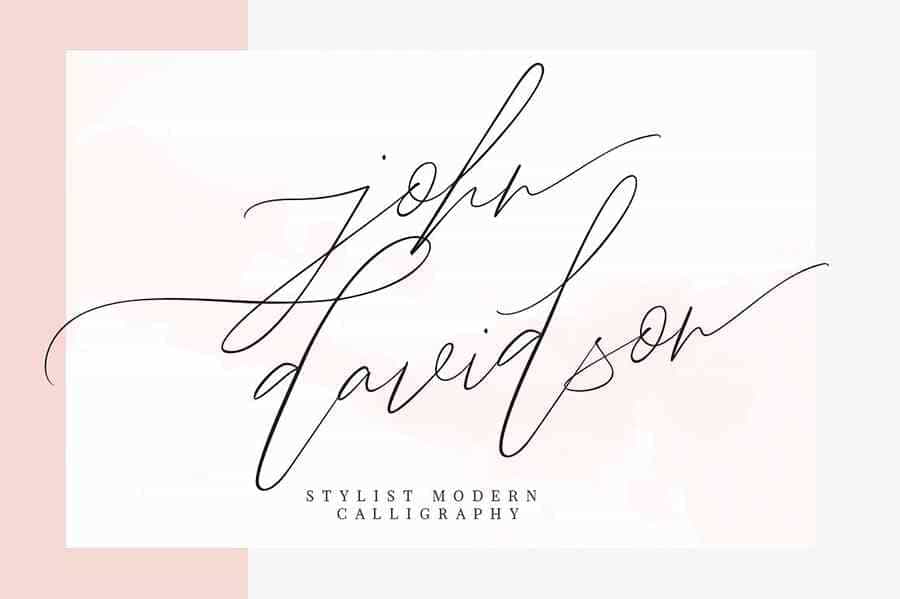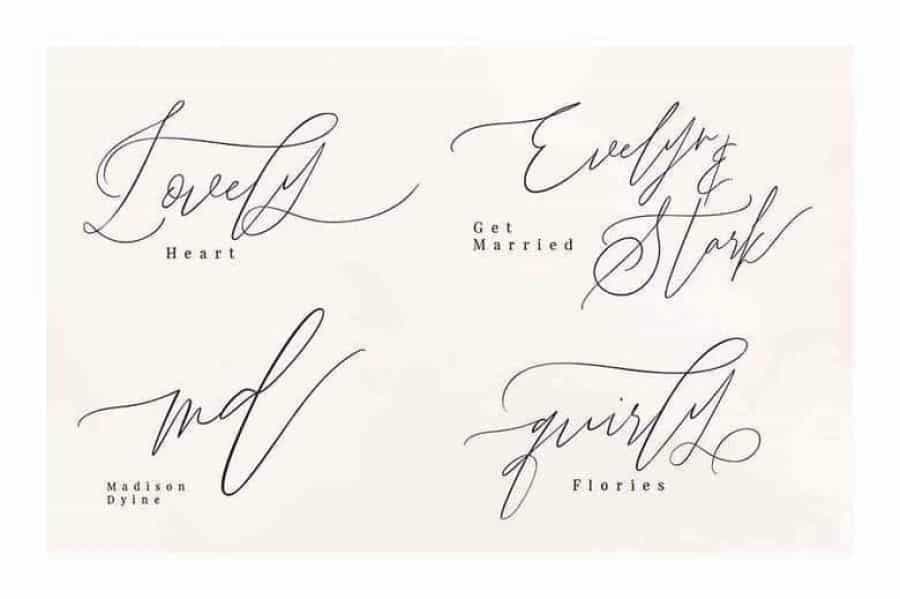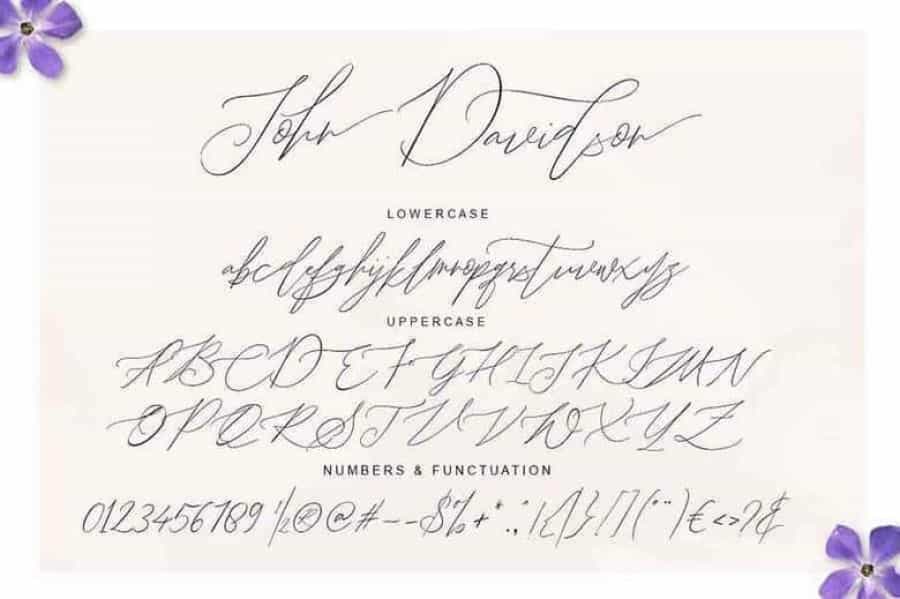
Here we are! John Davidson, a beautiful modern calligraphy typefaces with lovely echoes and handwritten styles. John Davidson is a beautiful good example of typographic harmony on diverse design projects, like logos & branding, wedding designs, social media posts, advertisements & product designs.